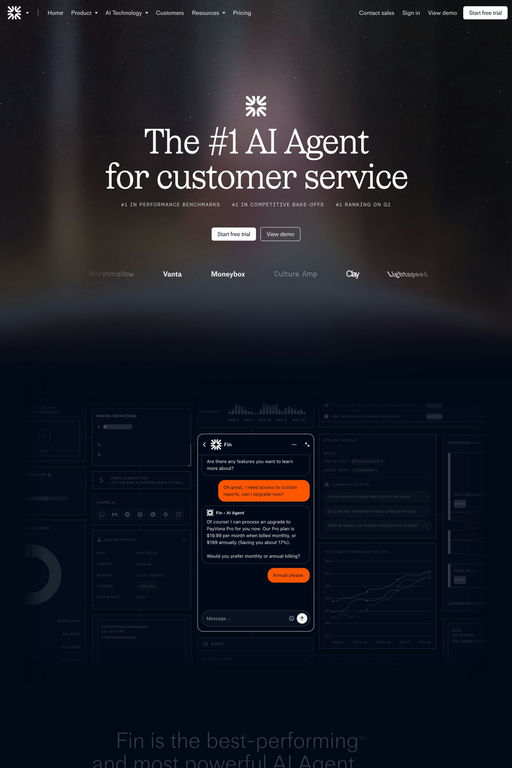
Ivory is a serif typeface from Lineto.
LL Ivory is Aurèle Sack’s first in-depth development of a full family of serifs. The first styles were initiated in 2016, when Aurèle was appointed typographic consultant to Vogue Hommes Paris. This led to a commission for a new titling font, ‘an expressive, yet elegant serif typeface’, to accompany his own LL Brown which had already been in use at the magazine.